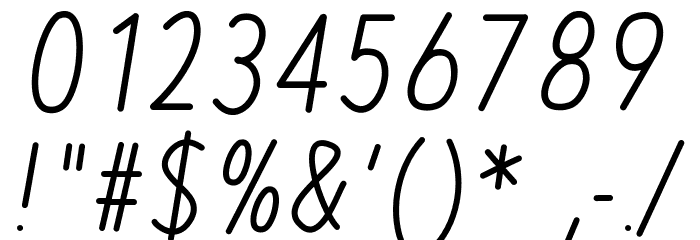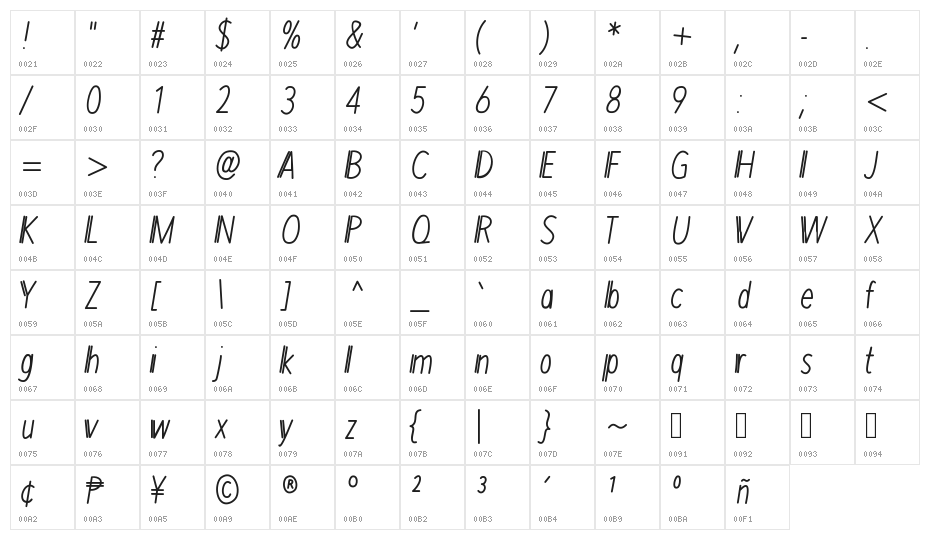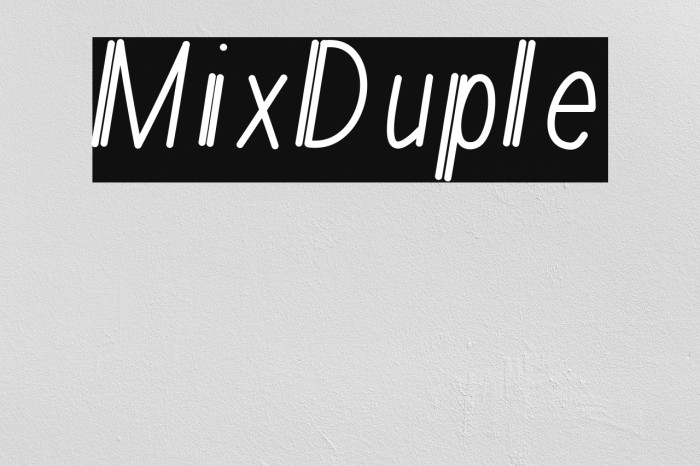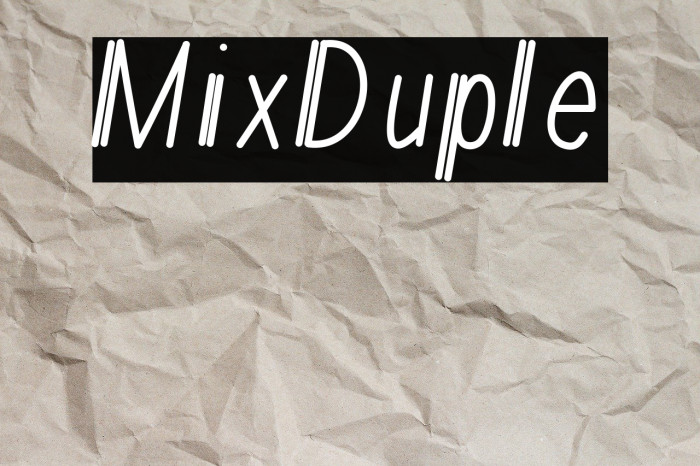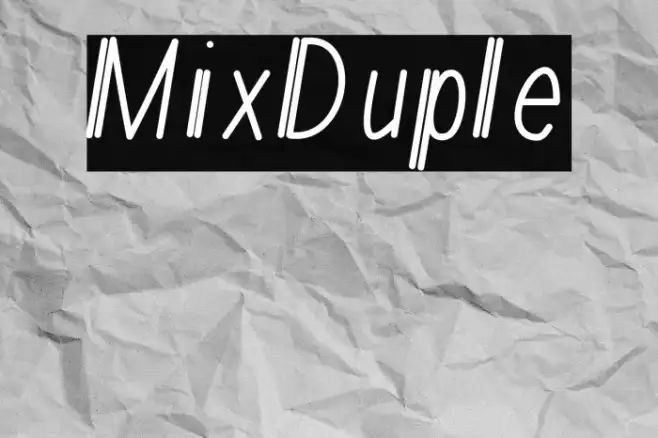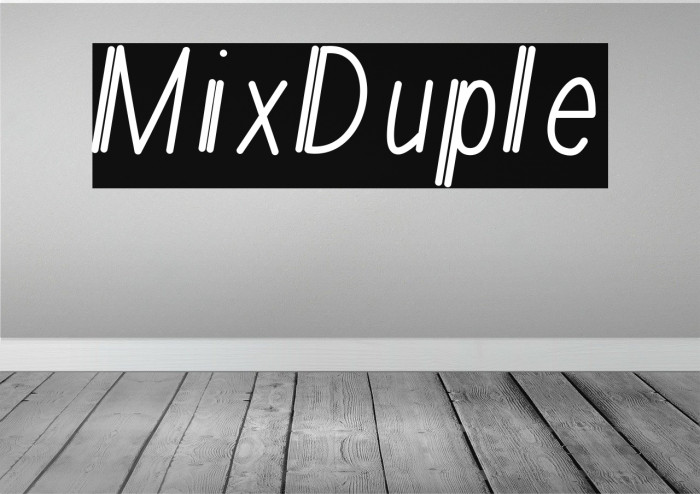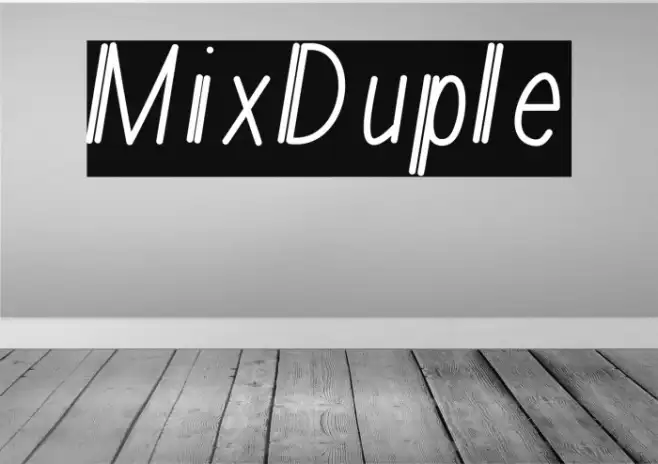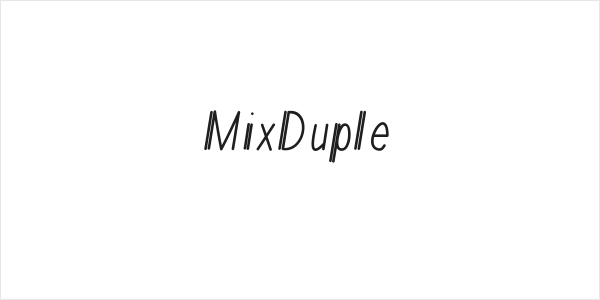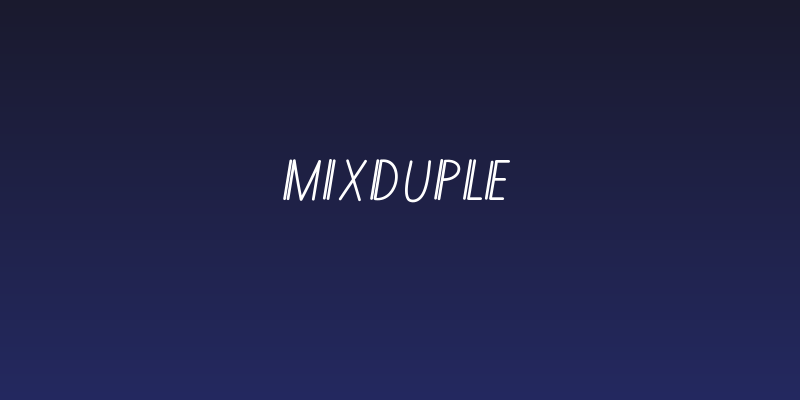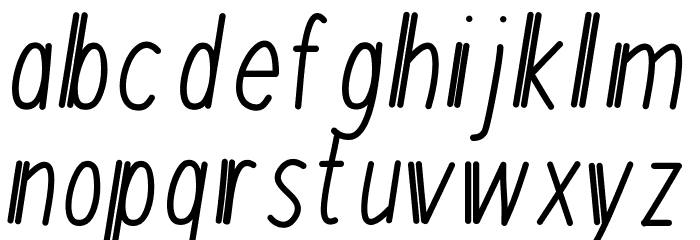
MixDuple Font
MixDuple Description
This font features a unique blend of modern and handwritten styles, characterized by its slanted, elongated letterforms that convey a sense of motion and fluidity. The uppercase letters are tall and narrow, with a slight italic slant, giving them a dynamic appearance. The lowercase letters maintain a consistent style, with rounded edges and a slightly playful demeanor. Numbers are clear and legible, following the same slanted style, which adds to the overall cohesiveness of the font. Special characters are well-integrated, ensuring versatility in various applications. The font's design is both approachable and stylish, making it suitable for creative and informal projects.